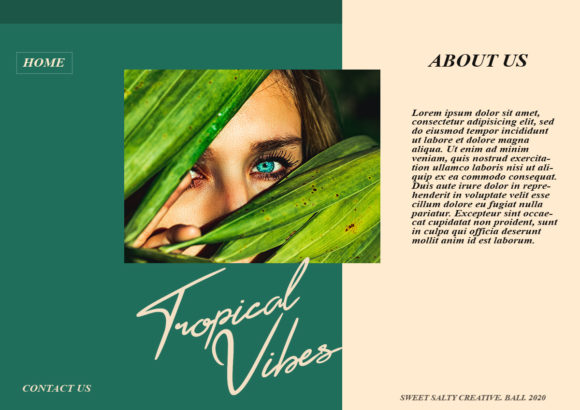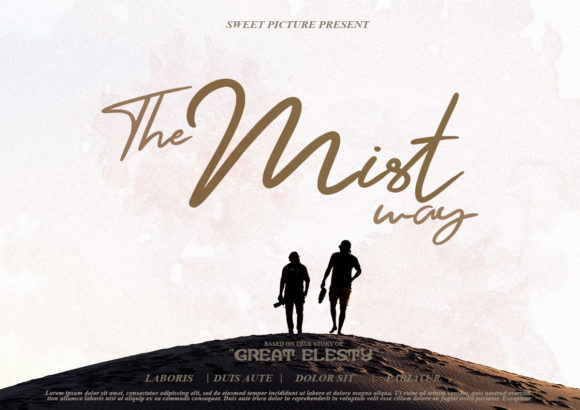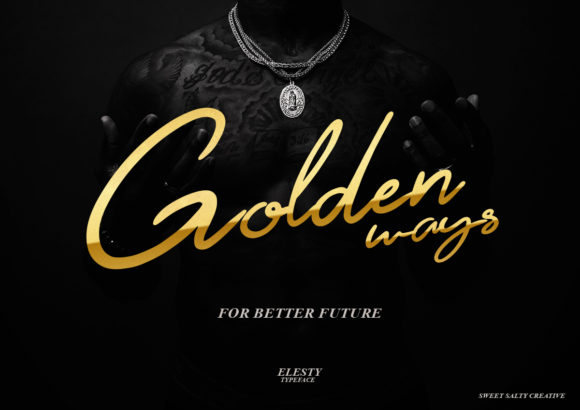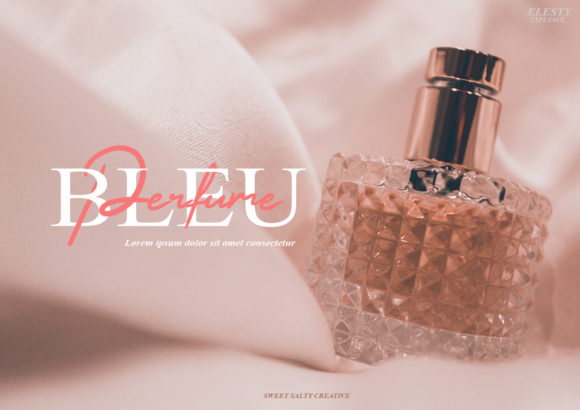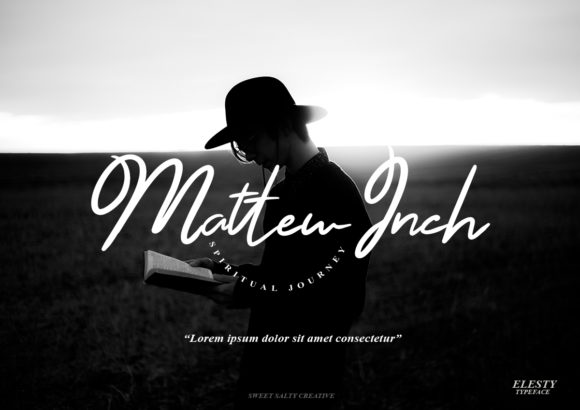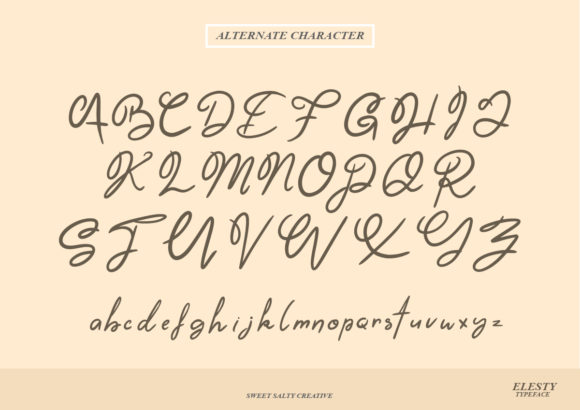
Introduction to Elesty Font
Have you ever stared at a blank canvas, trying to bring your creative project to life, only to find that the right words just aren’t flowing? That’s when you know you need the perfect design resource to breathe some magic into your work. For many designers, the key to unlocking that creative spark lies in the perfect font – and that’s where the stunning Elesty Font comes in.
With its delicate, elegant, and flowing handwritten style, the Elesty Font is the perfect addition to any high-quality design project. Its beautiful and well-balanced characters make it a versatile choice that matches a wide range of designs, from elegant invitations to creative branding materials.
Whether you’re working on a free download or a paid project, the Elesty Font is a valuable asset that can elevate your design to the next level. And with its transparent background and PUA encoded glyphs, you’ll have access to all the stunning alternates and swashes you need to make your design truly shine.
Key Features of Elesty Font
- High-quality font design for creative projects, ideal for use in graphic design, digital art, and typography.
- Transparency and versatility are key features, with a transparent background that allows for easy layering and customization.
- Unique, modern design aesthetic that sets it apart from other fonts in its class, making it a valuable design resource for creatives.
- High-resolution design, suitable for use in print and digital applications, with a resolution of 300 DPI or higher.
- Multi-language support, allowing for use in a wide range of creative projects, from logos and branding to editorial and publishing work.
Honest Review: Elesty Font
I recently had the opportunity to work with the Elesty Font on a creative project, and I must say I was impressed. This free download has quickly become a go-to design resource for me. ✨ The high quality of the font is evident, making it perfect for both digital and print materials.
One of the standout features of the Elesty Font is its versatility. It’s available in a range of weights and styles, allowing me to easily adapt it to different design needs. Additionally, the transparent background makes it easy to incorporate into various design elements.
- High-quality design that looks great on digital and print materials
- Available in a range of weights and styles for versatility
- Transparent background for easy incorporation into design elements
- May not be suitable for very formal or professional designs
- Lack of customization options
Overall, I’m a big fan of the Elesty Font. While it may have some limitations, its strengths far outweigh them. If you’re looking for a high-quality, free design resource, I’d definitely recommend giving it a try.
Tips for Getting the Most Out of Elesty Font
Experiment with different font sizes and styles to create a unique look. Use the Elesty Font in combination with other design elements, such as images and graphics, to add depth and interest to your designs.
The Elesty Font is ideal for use in logos, branding materials, and marketing collateral. Its high-quality design and transparent background make it perfect for creating visually appealing graphics and charts.